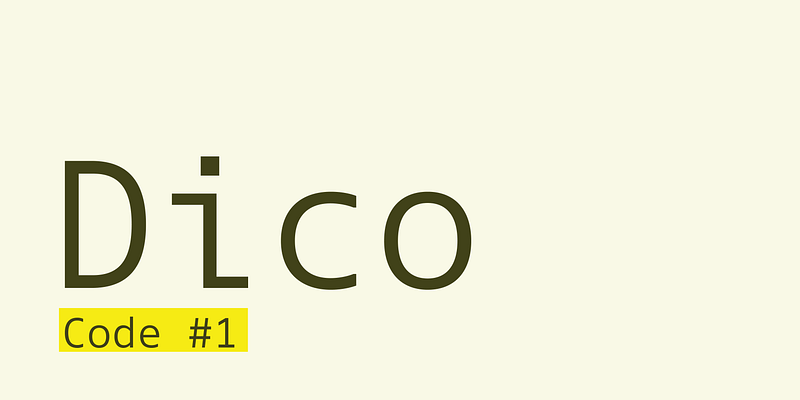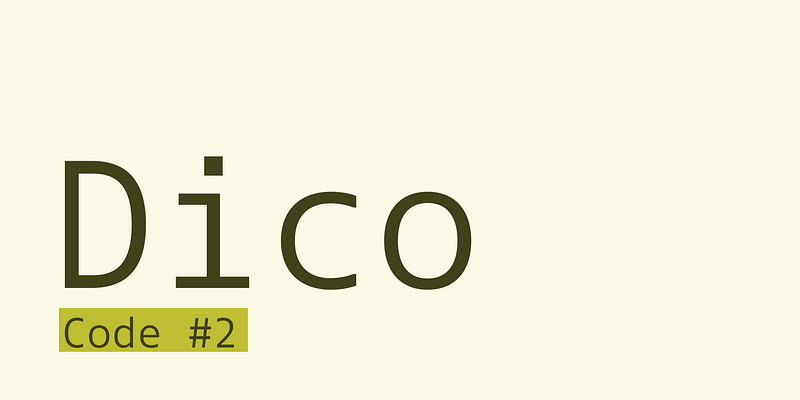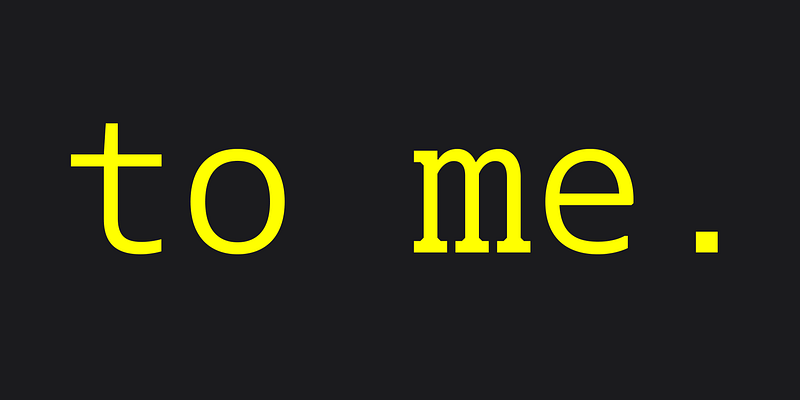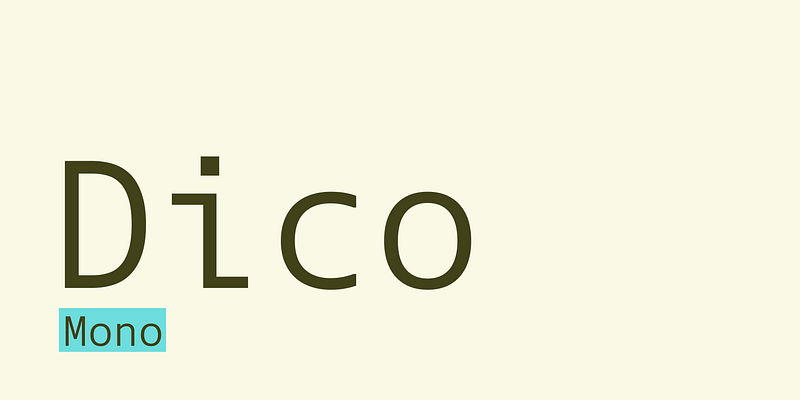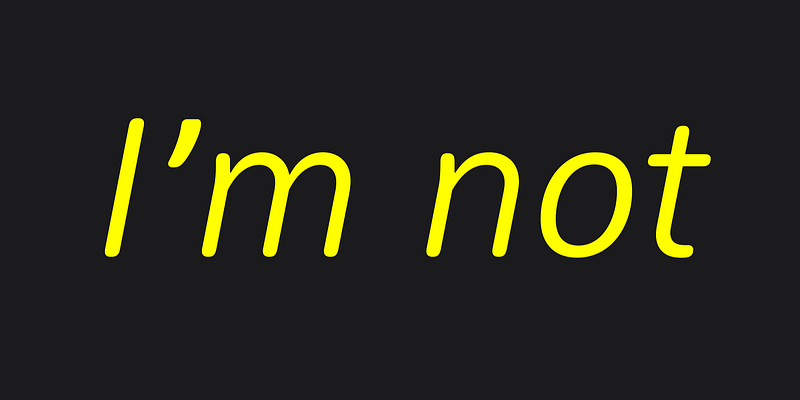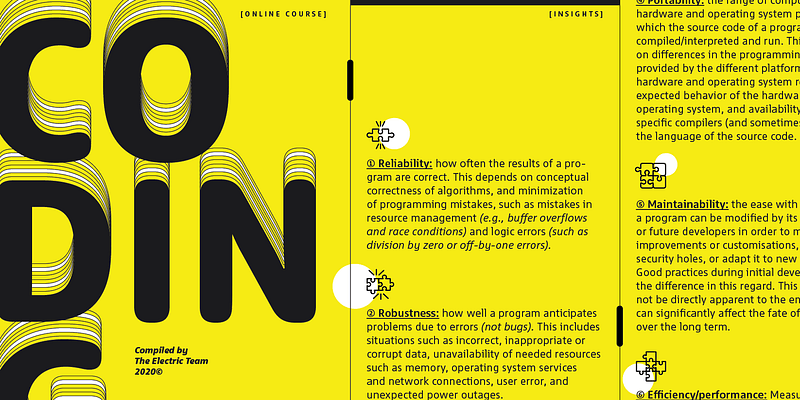
The basic structure and feel of Dico (Latin for “I speak, I talk, I give a speech”) is shaped by compact proportions and open, yet restrained letterforms that gain in friendliness and warmth when accompanied by their more swinging italics. Monospaced script styles – loosely based on Corinthian Script for the IBM Selectric – can bring things into an even more delightful direction. The weight range may seem small compared to other large type families but Dico more than makes up for that with other matching variations on the theme. Next to the Sans you can choose from a Slab-serif, the rounded Dico Soft, monospaced Sans and Slab, two Code variants, and Dico Typewriter containing “rough” versions of Dico Mono Sans, Mono Slab and Mono Script. 45 fonts in total. For additional license options like app, enterprise, multi-user, and self-hosted web, visit [Dico Code One on Type Network](https://store.typenetwork.com/foundry/boldmonday/series/dico?family=dico-code-one).